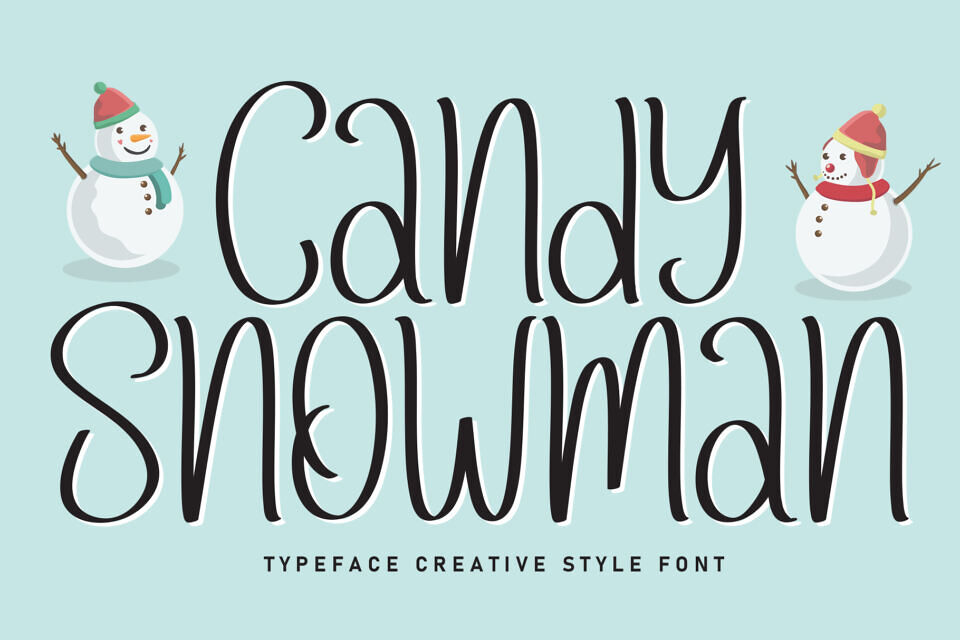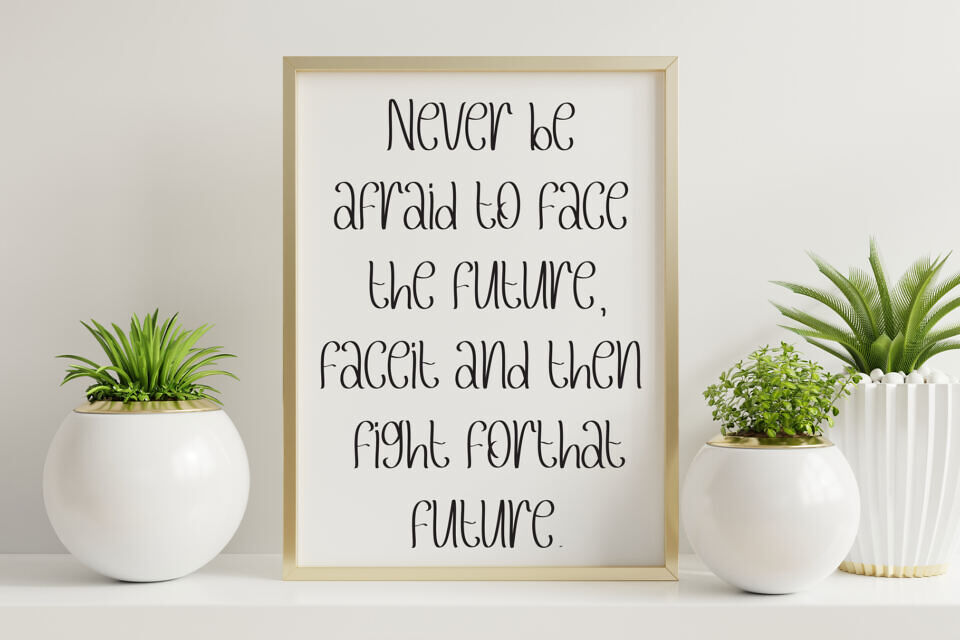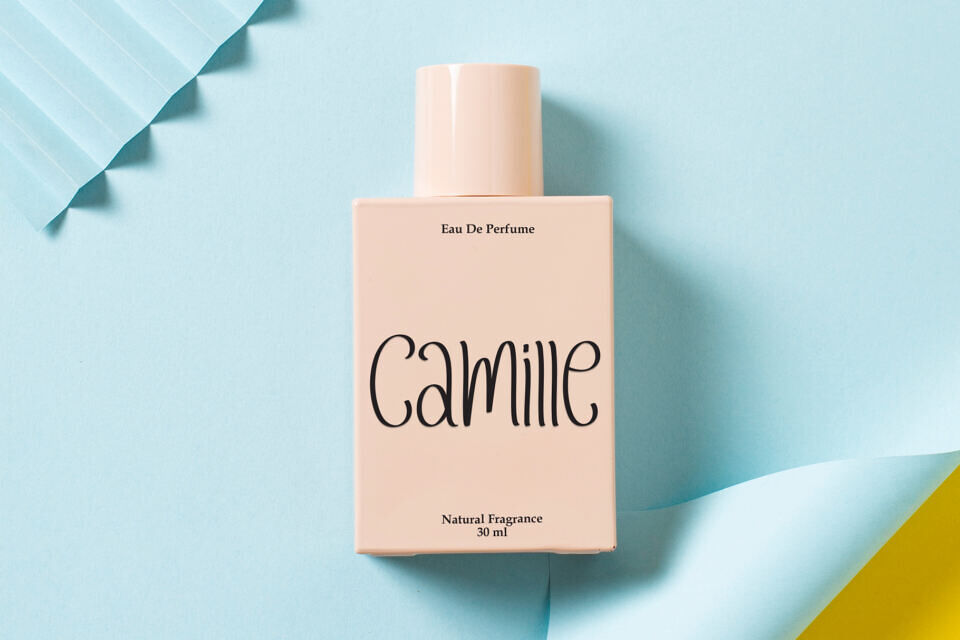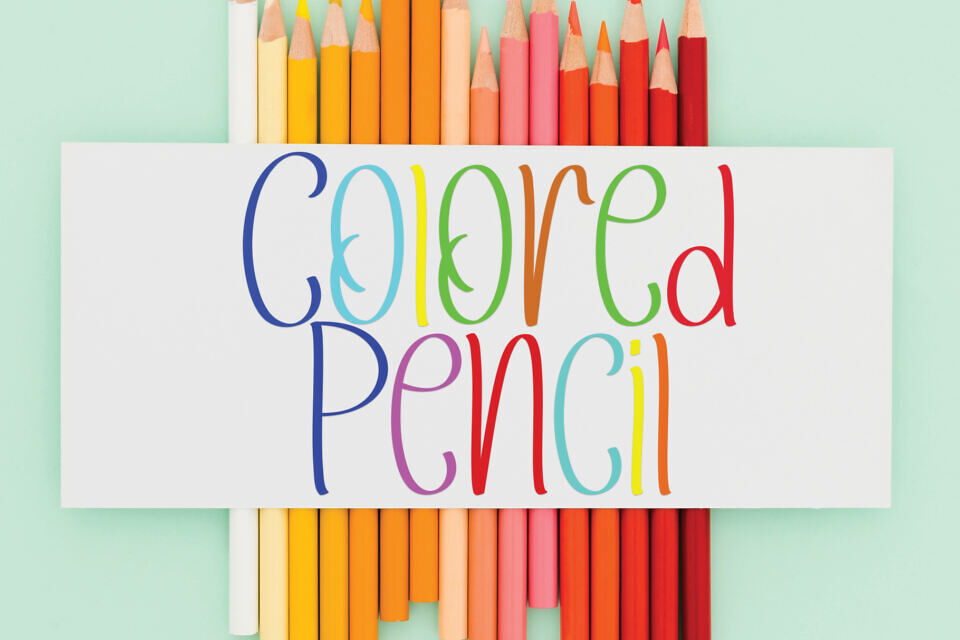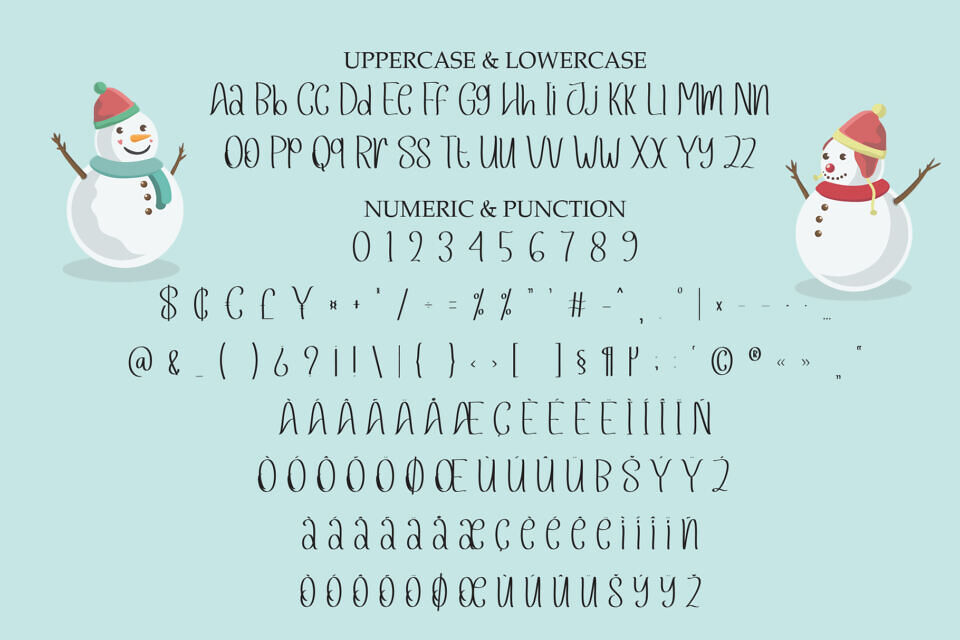
The Candy Snowman Font is a whimsical, handwritten typeface with a festive flair, perfect for holiday designs. Featuring uppercase and lowercase letters, numbers, and punctuation, it includes playful snowman characters on each side, adding a charming winter touch.
With its soft, rounded strokes and decorative elements like currency symbols and accented characters, this font brings a cozy, candy-sweet vibe to invitations, cards, and seasonal crafts. Ideal for spreading cheerful, snowy vibes!